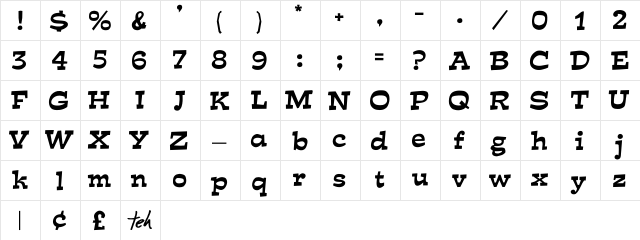
FishFace Regular
Design Context for FishFace Typeface
FishFace is a composed and adaptable typeface that performs quietly and consistently across a wide range of design contexts.